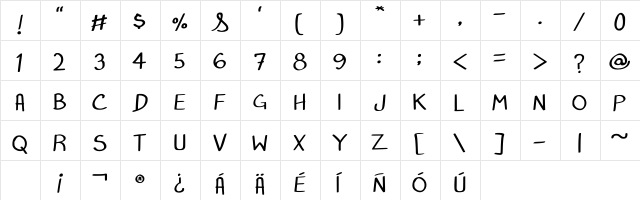
Julios Regular
Design Context for Julios Typeface
Julios is a composed and adaptable typeface that performs quietly and consistently across a wide range of design contexts.